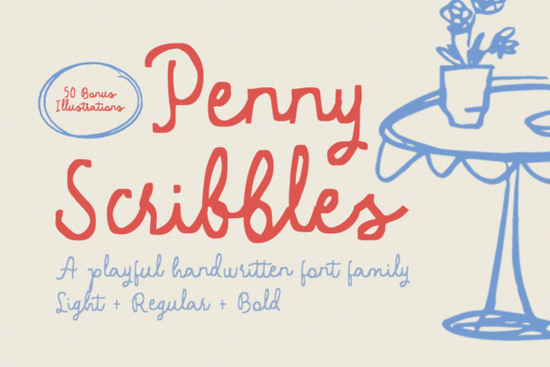
If you're looking for a font that captures the playful, whimsical vibe of a child's handwriting with a modern twist, Penny Scribbles Font is a great choice. This handwritten font family features messy, playful strokes that bring a unique and charming touch to your designs.
Why Choose Penny Scribbles Font?
Penny Scribbles is perfect for projects that need a touch of whimsy and nostalgia. Whether you're designing a food menu, a recipe card, or any other creative project, this font adds a special, hand-drawn feel. The font's playful yet modern style makes it versatile and suitable for a wide range of design needs.
What Makes Penny Scribbles Unique?
One of the standout features of Penny Scribbles is the inclusion of 50 unique illustrations. These illustrations are provided in both SVG and PNG formats, making them easy to use in various design projects. The combination of the font and these illustrations offers a complete design package, allowing you to create cohesive and visually appealing projects.
How to Use Penny Scribbles in Your Designs
Incorporating Penny Scribbles into your designs is straightforward. Here are a few ideas on how you can use this font and its accompanying illustrations:
- Food Menus: Add a playful and inviting touch to your restaurant or café menus. The font's handwritten style can make your menu look more personal and engaging.
- Recipe Cards: Create recipe cards that feel like they were written by hand. The font's childlike quality can add a charming and nostalgic feel to your recipes.
- Children's Books and Invitations: Use Penny Scribbles for children's books, birthday invitations, and other kid-friendly designs. The font's playful nature will resonate well with young audiences.
- Social Media Graphics: Enhance your social media posts with this unique font. It can help your graphics stand out and add a personal touch to your content.
Complementary Fonts for Penny Scribbles
Tips for Using Penny Scribbles Effectively
To get the most out of Penny Scribbles, here are some tips:
- Balance Playfulness and Readability: While the font's playful style is a key feature, make sure it remains readable, especially for longer text blocks.
- Use Illustrations Wisely: The 50 unique illustrations included with the font can be a great addition to your designs. Use them to enhance the overall aesthetic and add visual interest.
- Experiment with Colors: Try different color combinations to see what works best for your project. The font's versatility allows for a range of color schemes.
- Combine with Other Fonts: Pair Penny Scribbles with other fonts to create a balanced and visually appealing design. Complementary fonts can help you achieve the right tone and style for your project.
Final Thoughts
Penny Scribbles Font is a wonderful addition to any designer's toolkit. Its playful, childlike style and the inclusion of 50 unique illustrations make it a versatile and valuable resource for a variety of design projects. Whether you're working on a food menu, a children's book, or a social media graphic, this font can add a special, hand-drawn touch to your work.